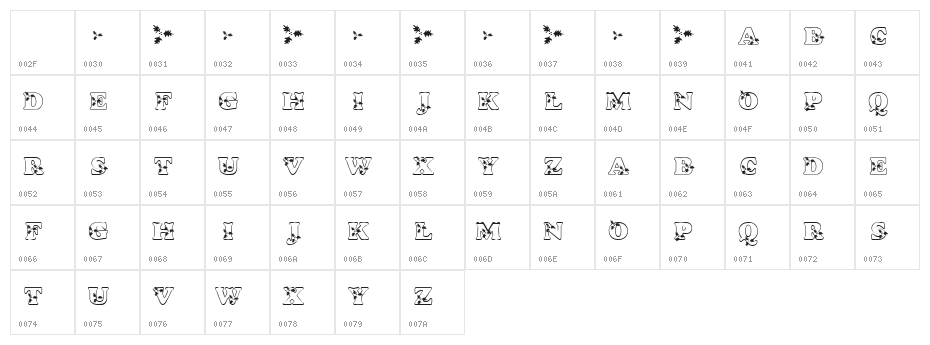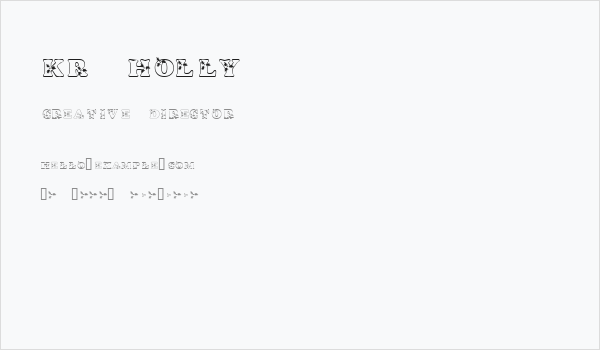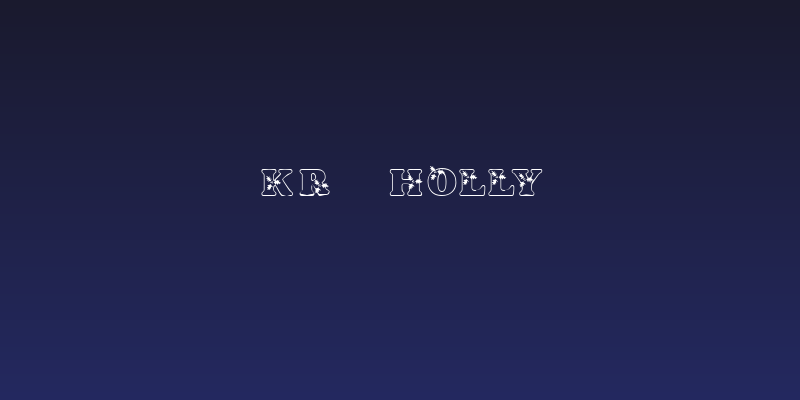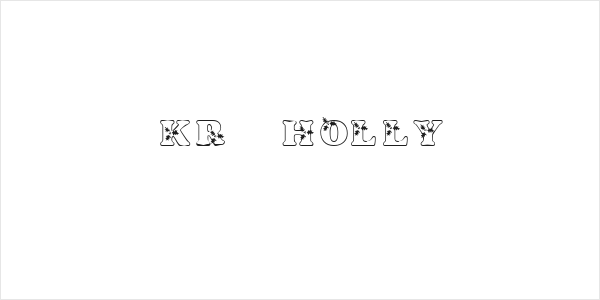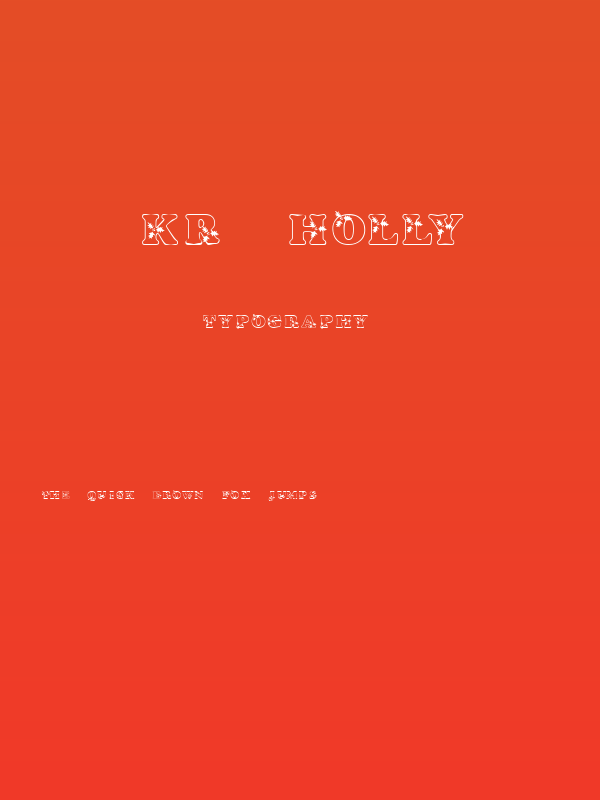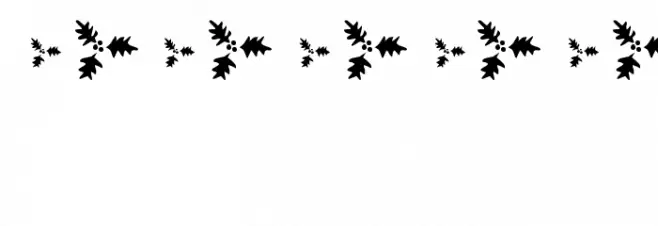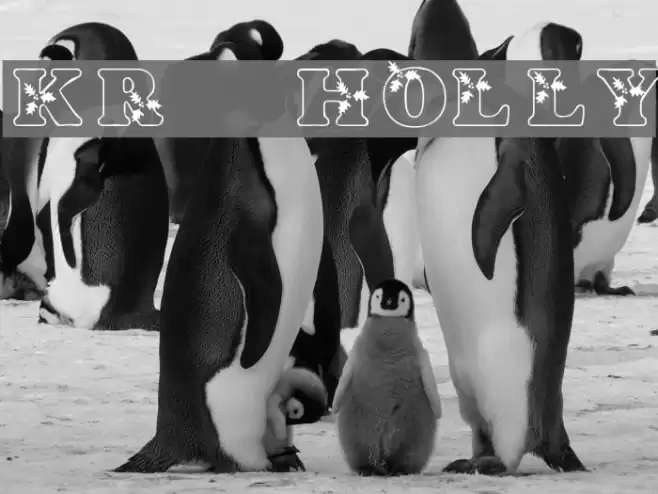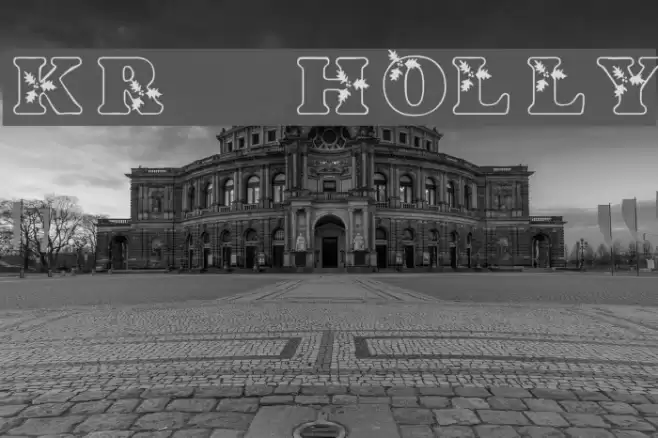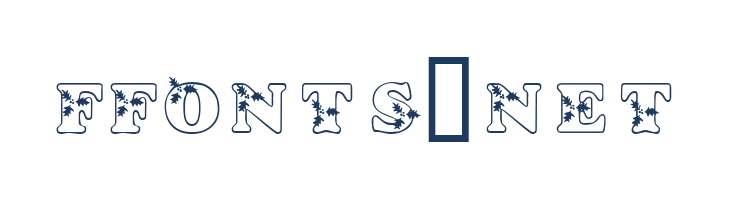
KR Holly Font
This font is a decorative typeface that incorporates festive holly leaf motifs into the design of each letter. The uppercase letters are bold and outlined, with intricate holly leaves and berries embellishing the interior spaces, creating a whimsical and seasonal appearance. The font is ideal for holiday-themed projects, offering a unique and playful aesthetic that captures the spirit of the season. The characters are evenly spaced, ensuring readability while maintaining their decorative charm. The overall style is both festive and elegant, making it suitable for a variety of creative applications.
| Use Case | Headlines, Logos, Decorative text |
| Proposed Projects | Ideal for holiday cards, festive banners, seasonal invitations, and decorative posters. |